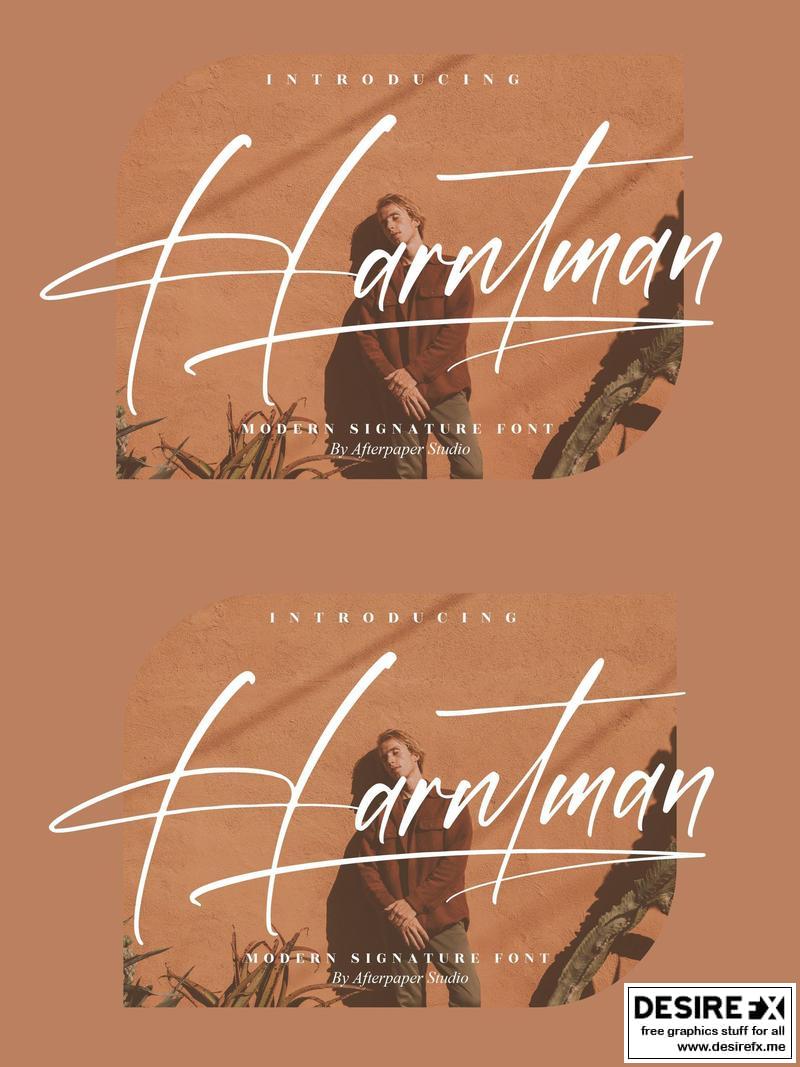
Harntman Modern Signature Font LS ADP2HT9
Hi ladies & gentlemen, this is one of our fonts suitable to complement your digital and printed creative products.
This font is perfect for posters, social media posts, branding, personal projects, etc.